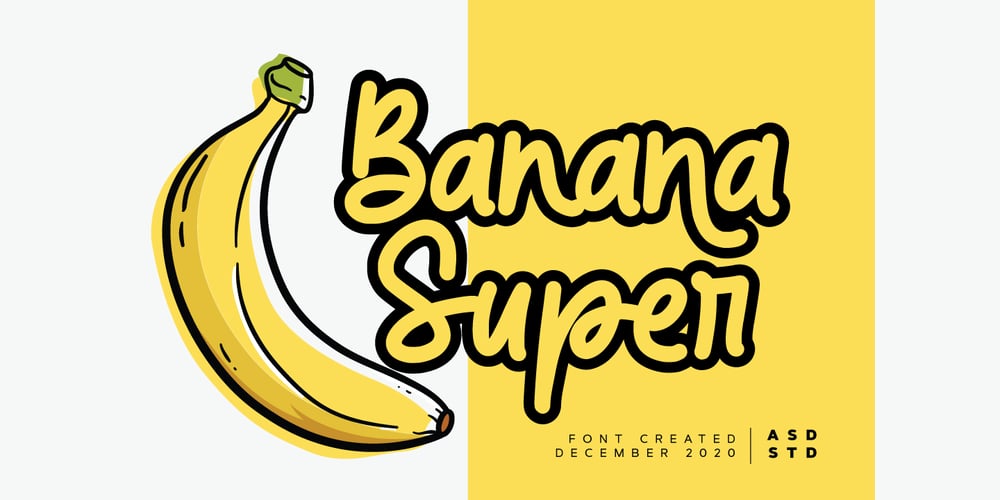
Super Banana
Super Banana font
Super Banana Font Family was designed by Ghazi and published by Asd Studio. Super Banana contains 1 styles and family package options. Introducing the new font Super Banana, simple, natural, and cute handwritten font. This font suitable for use in a variety of design fields, such as event advertisements, product promotions, book titles, activity titles, logos, adventure, and others. Features:- Uppercase- Lowercase- Number & punctuations- Multilingual- Ligatures and alternates character- PUA encoded I highly recommend using a program that supports OpenType featuresand Glyphs panels such as Adobe Illustrator, Adobe Photoshop CC, Adobe InDesign, or CorelDraw, so you can see and access all Glyph variations. This font is encoded with Unicode PUA, which allows full access toall additional characters without having special design software. Mac users can use Font Book, and Windows users can use Character Map to view and copy one of the extra characters to paste into your favorite text editor / application.